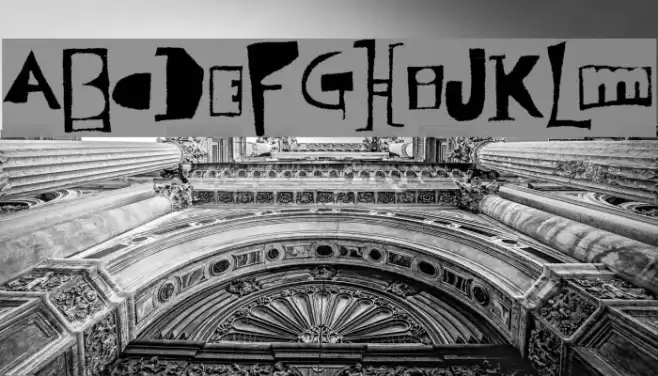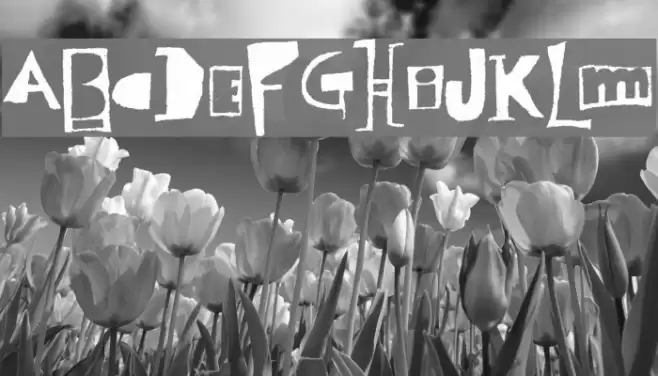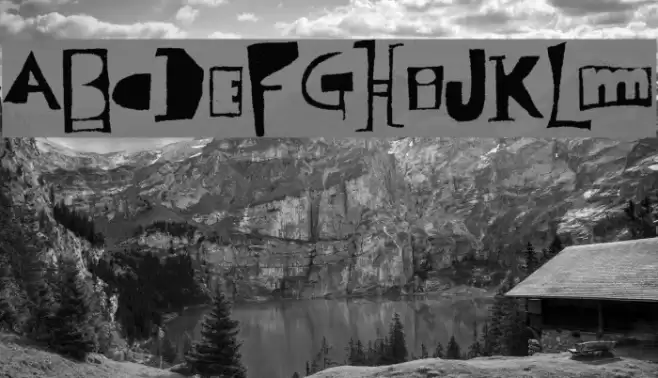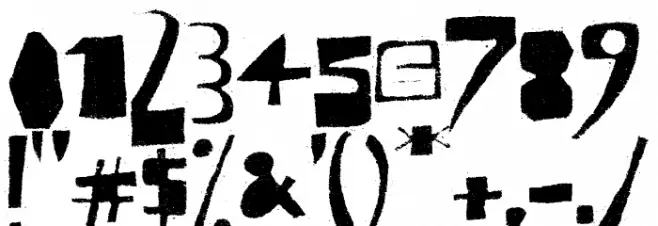
Polish Posterisation Font
Polish Posterisation Description
This font features a highly artistic and abstract design, reminiscent of mid-20th century Polish poster art. Each character is uniquely crafted with irregular shapes and varying line thicknesses, creating a dynamic and expressive appearance. The uppercase and lowercase letters maintain a consistent style, with sharp angles and bold strokes that convey a sense of movement and energy. The numbers and special characters follow the same artistic theme, adding to the font's cohesive look. This font is perfect for projects that require a bold, unconventional aesthetic.
An artistic, abstract font inspired by Polish poster art with bold, irregular shapes from Uncategorized fonts.
- Proposed Projects: Ideal for posters, album covers, artistic projects, and branding that seeks a unique, expressive style.
- Overall Style: Artistic, Abstract
- Use Case: Headlines, Posters, Artistic Displays